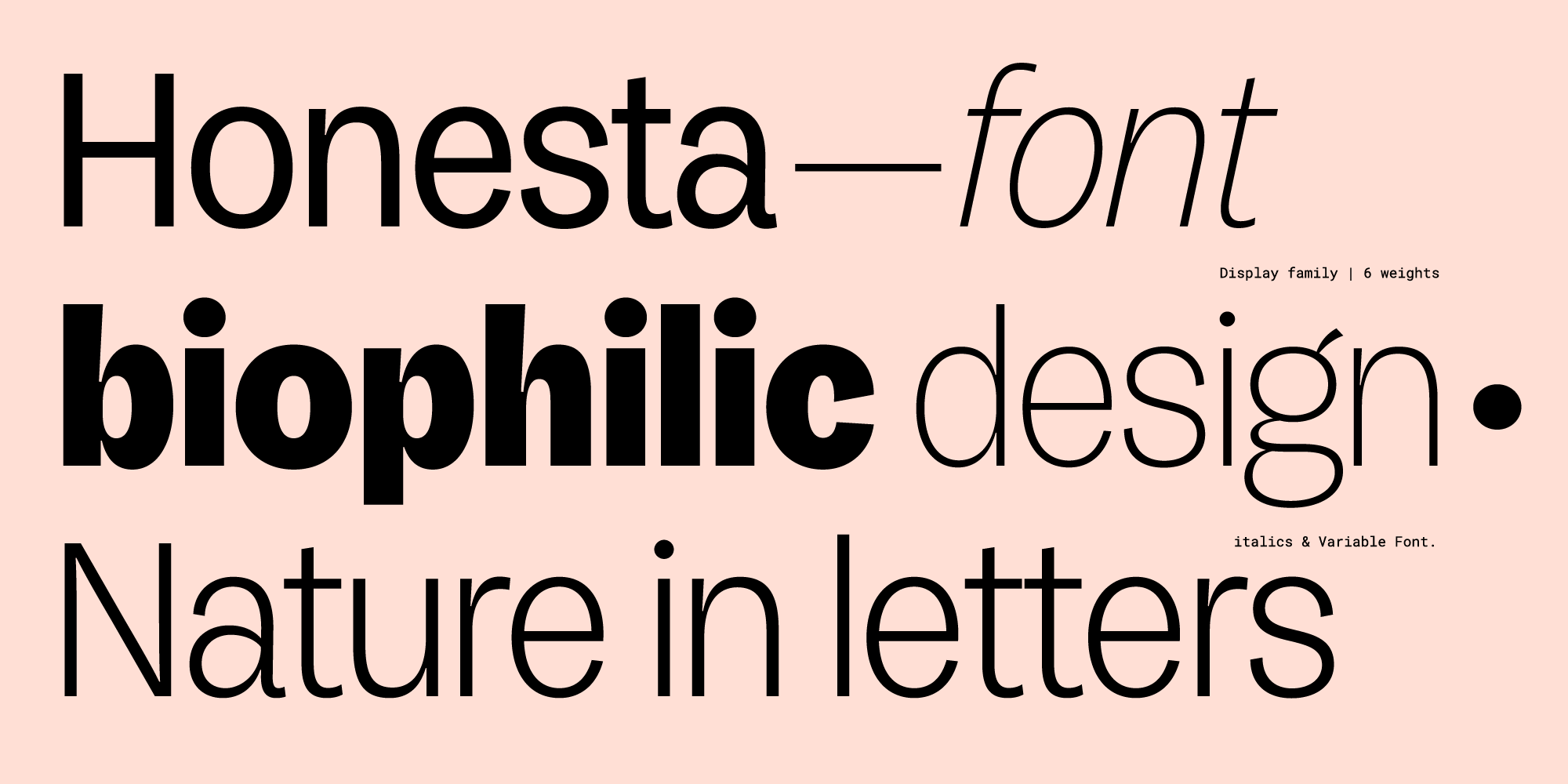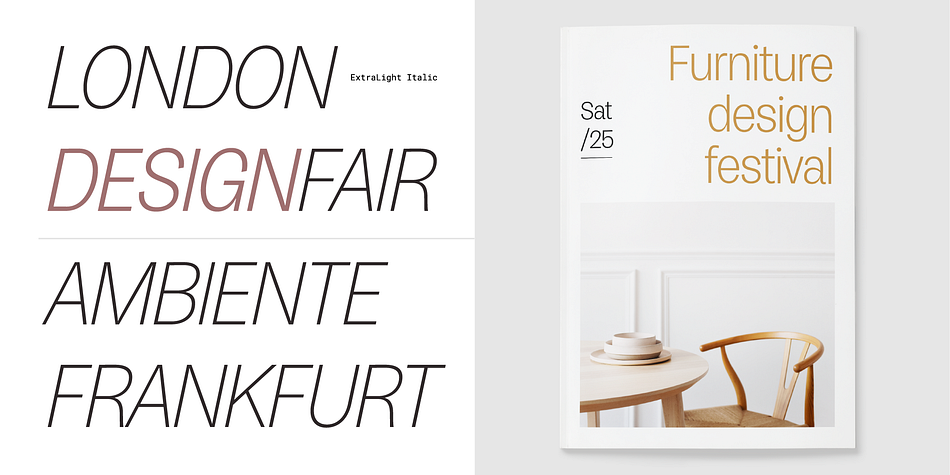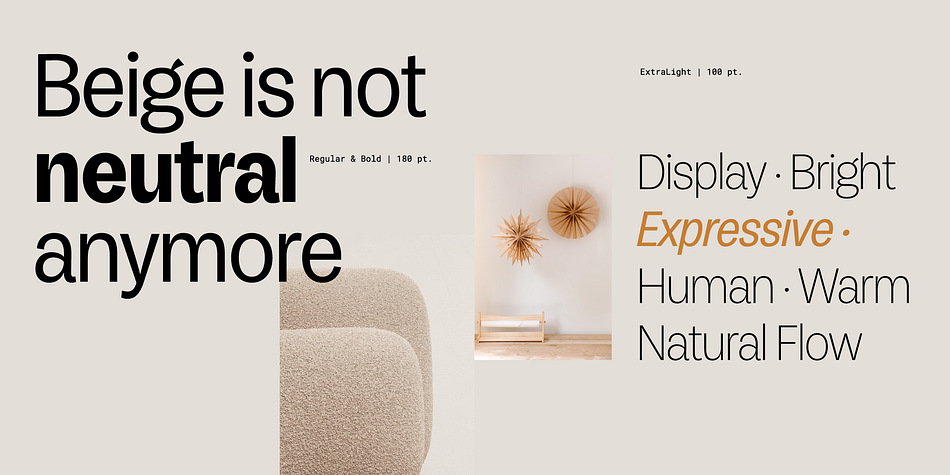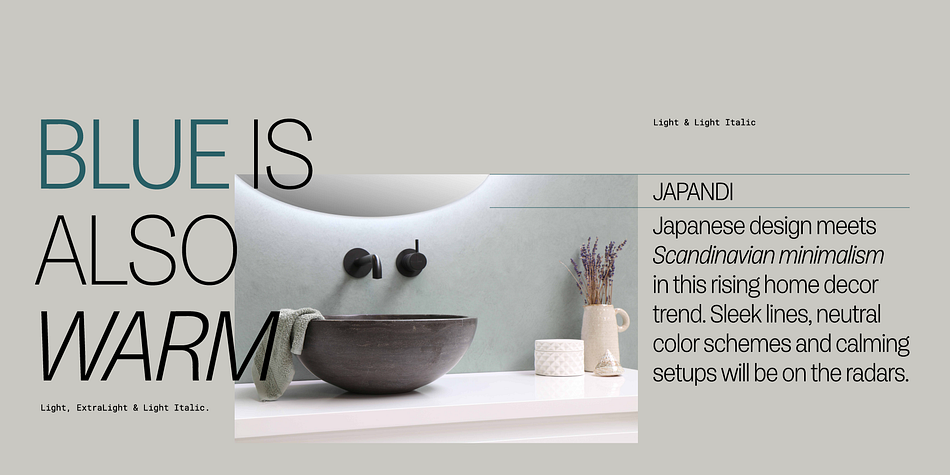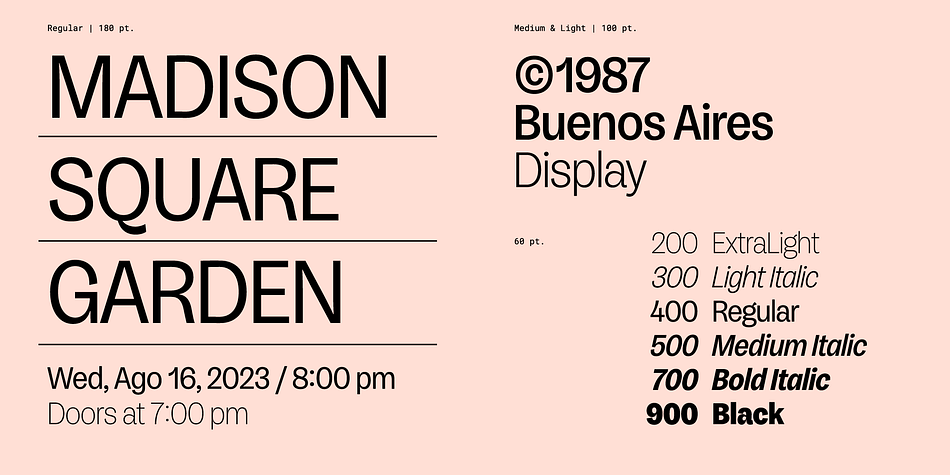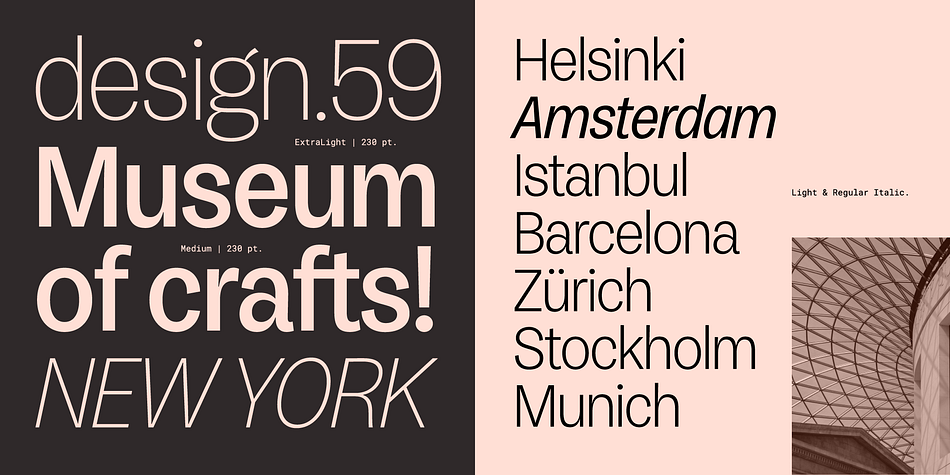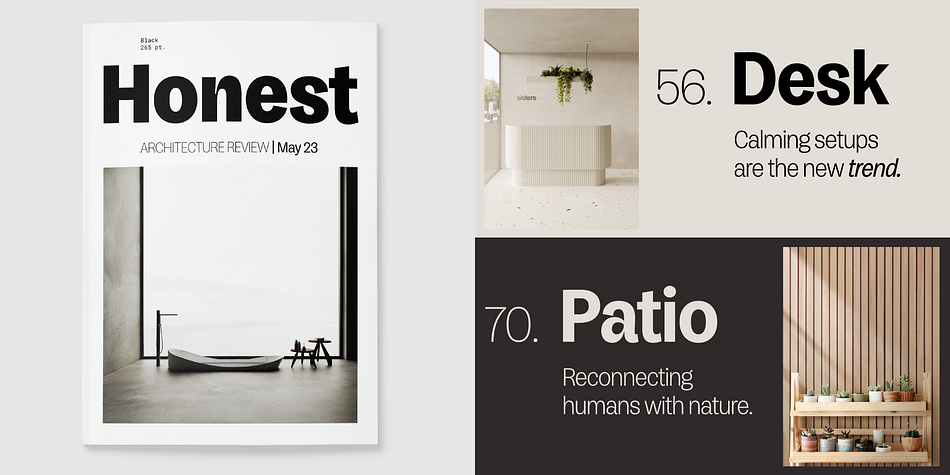
Honesta
Designed by Sabrina Lopez, Honesta is a sans serif font family. This typeface has twelve styles and was published by Typesenses.
Honesta—Spanish for honest—is a display grotesque typeface infused with an engaging human touch. The nuances found in the exaggerated contrast from stem to curve and the slightly angular terminals give what could be seen as ordinary a stylish appeal. It balances natural expression and digital clarity perfectly, offering a refreshed, modern sans for typographic designers wanting a little bit of the unexpected. Honesta is a 12-style family, including true italics and variable fonts.
Designer Sabrina Mariela Lopez